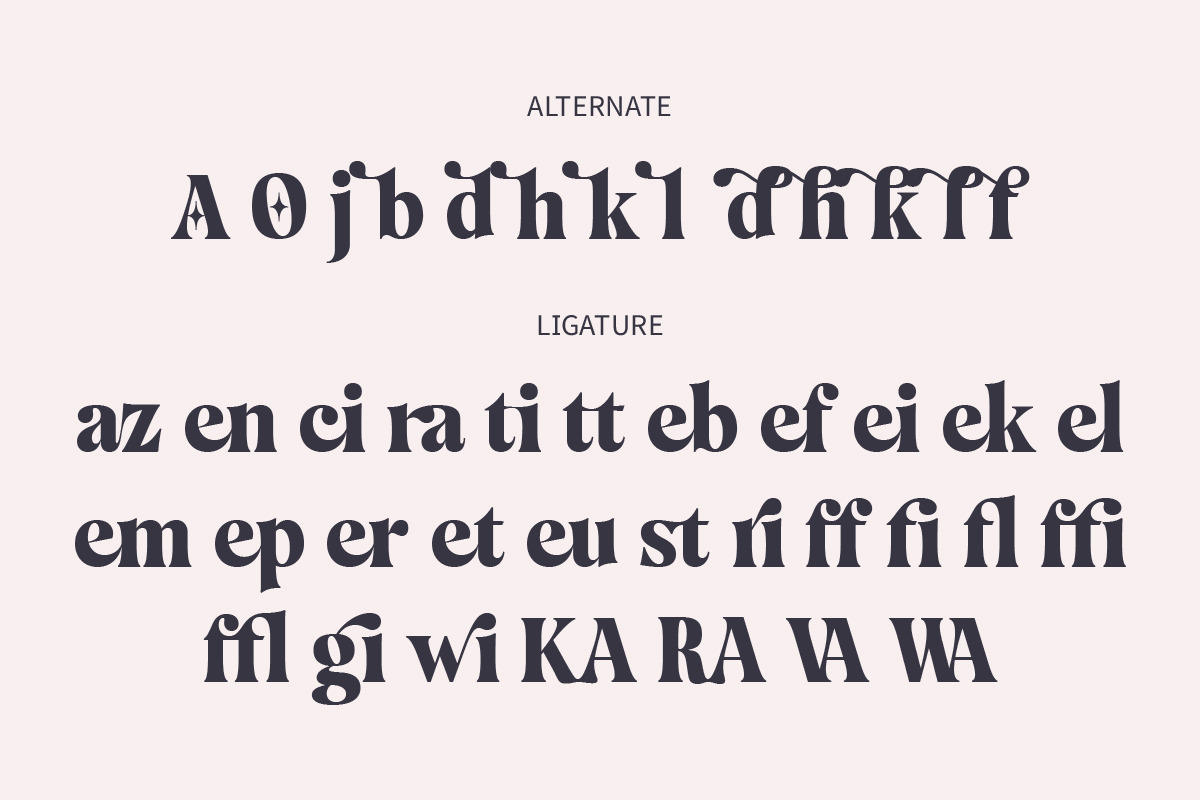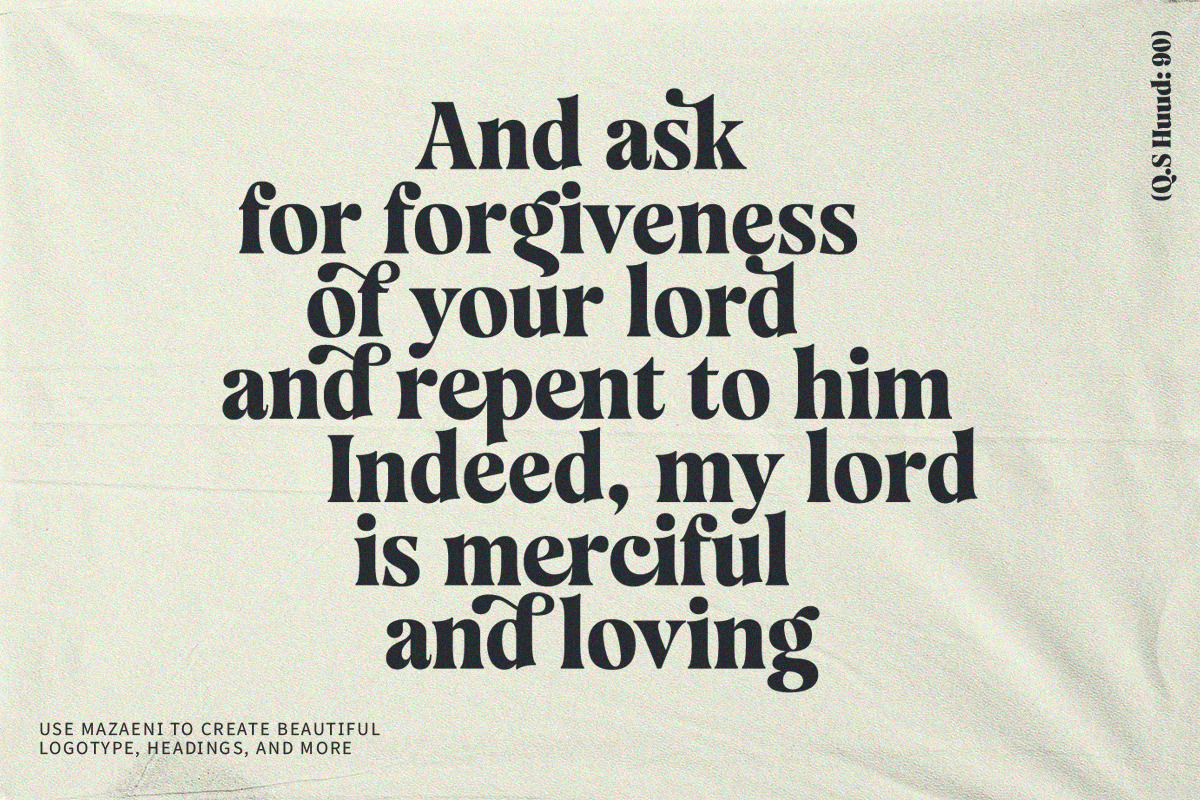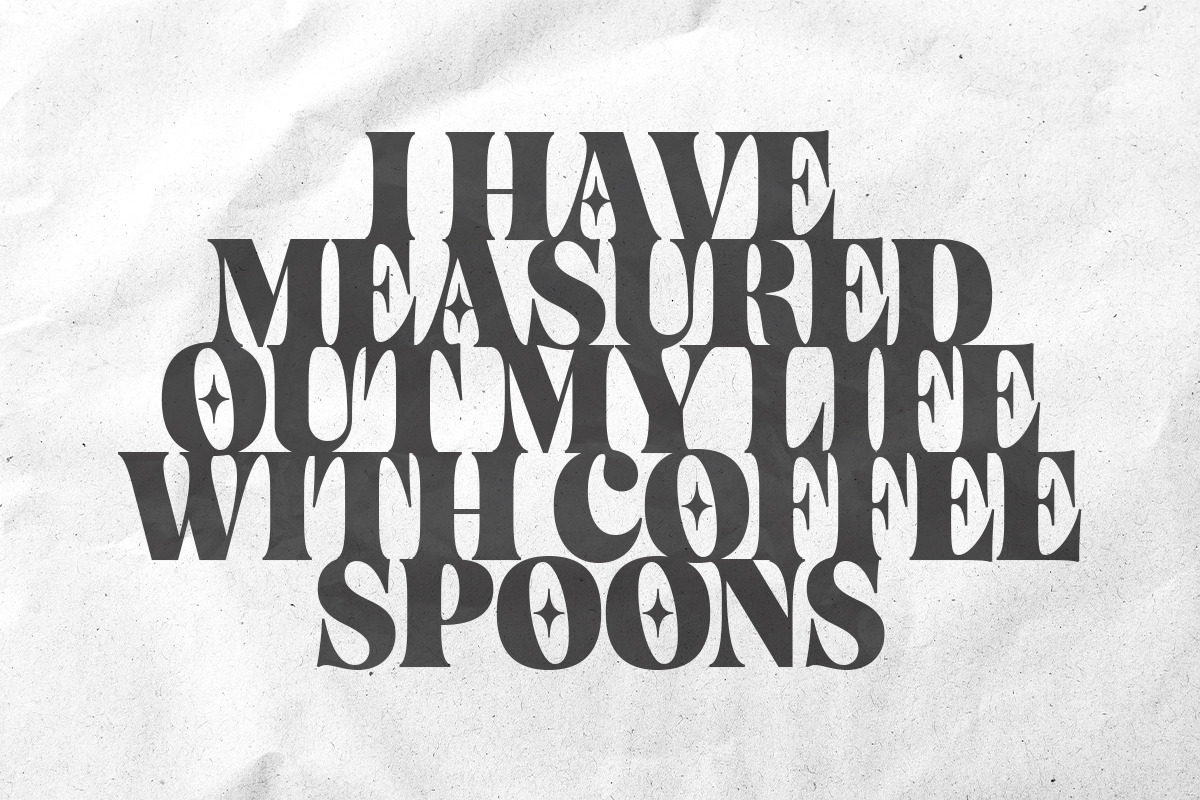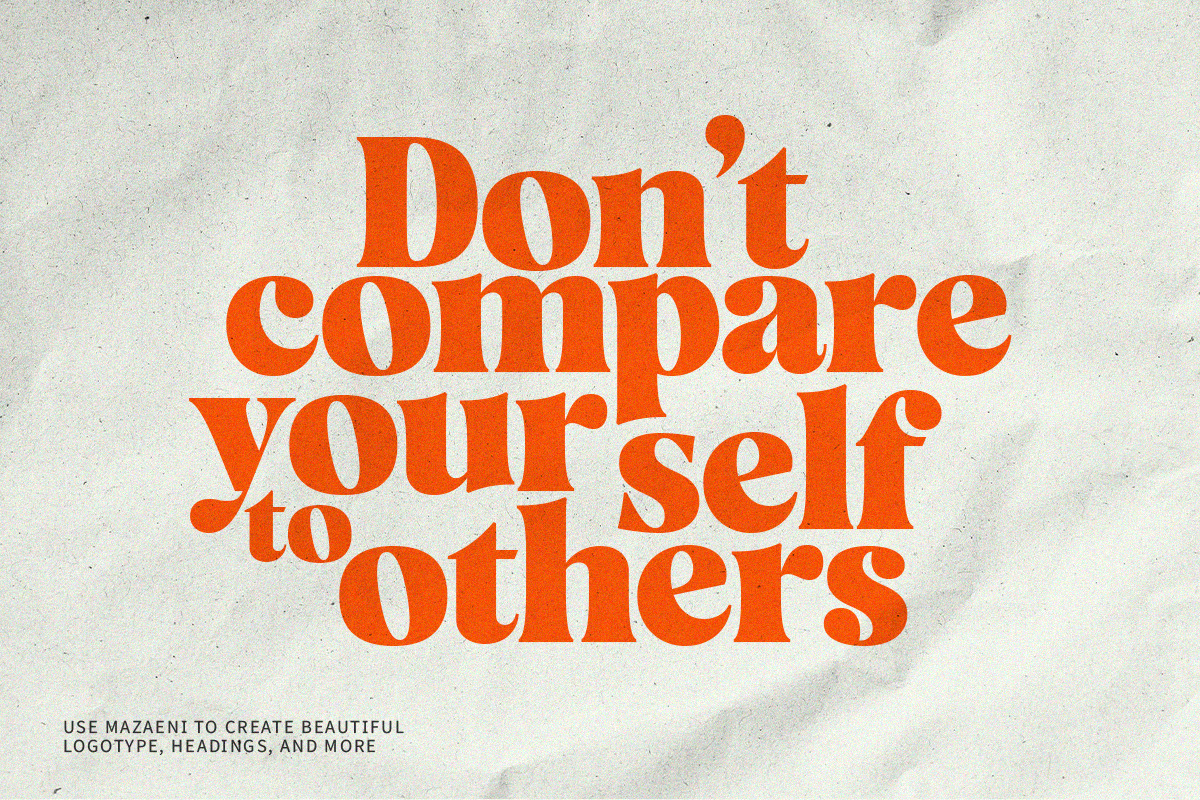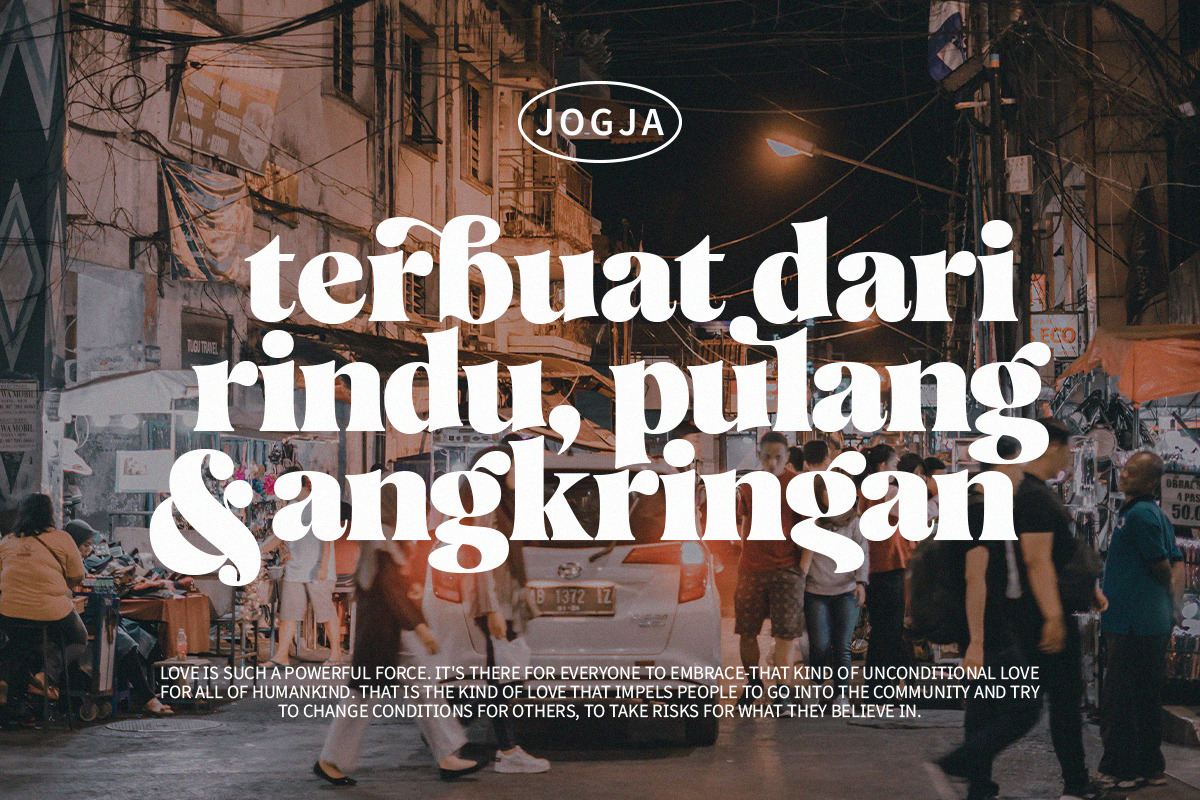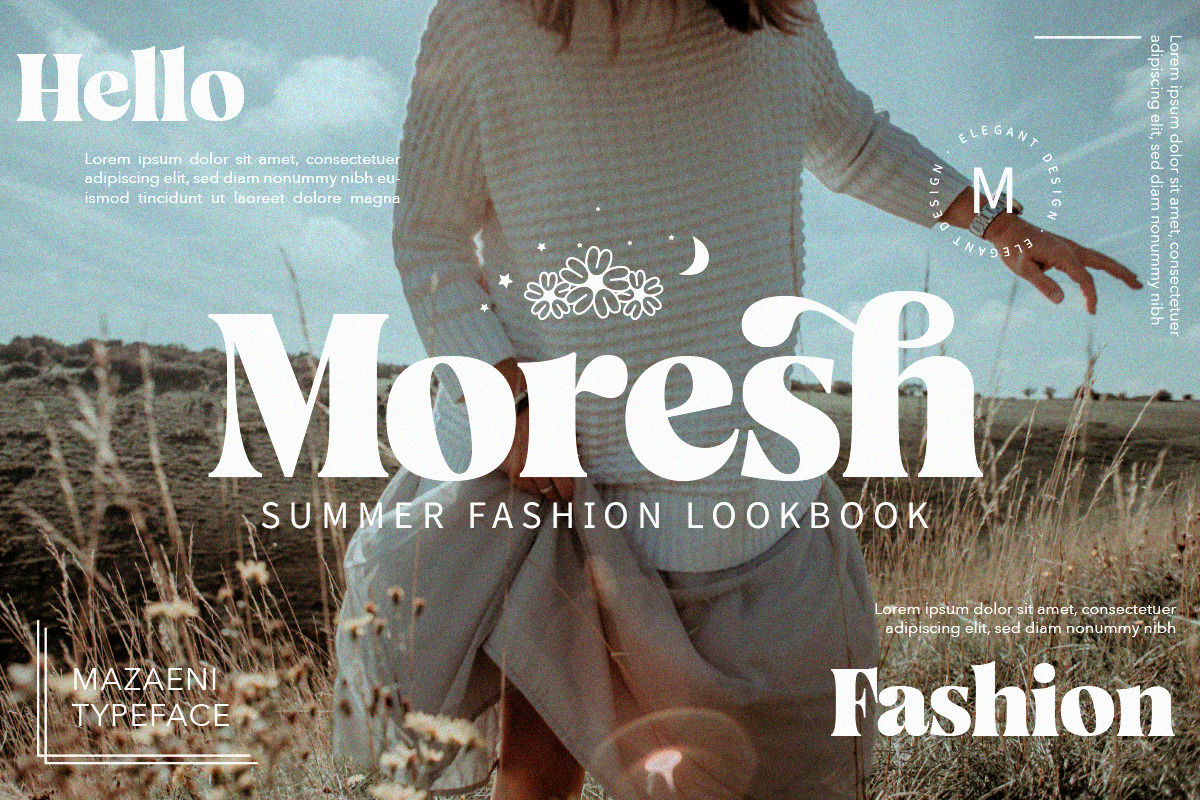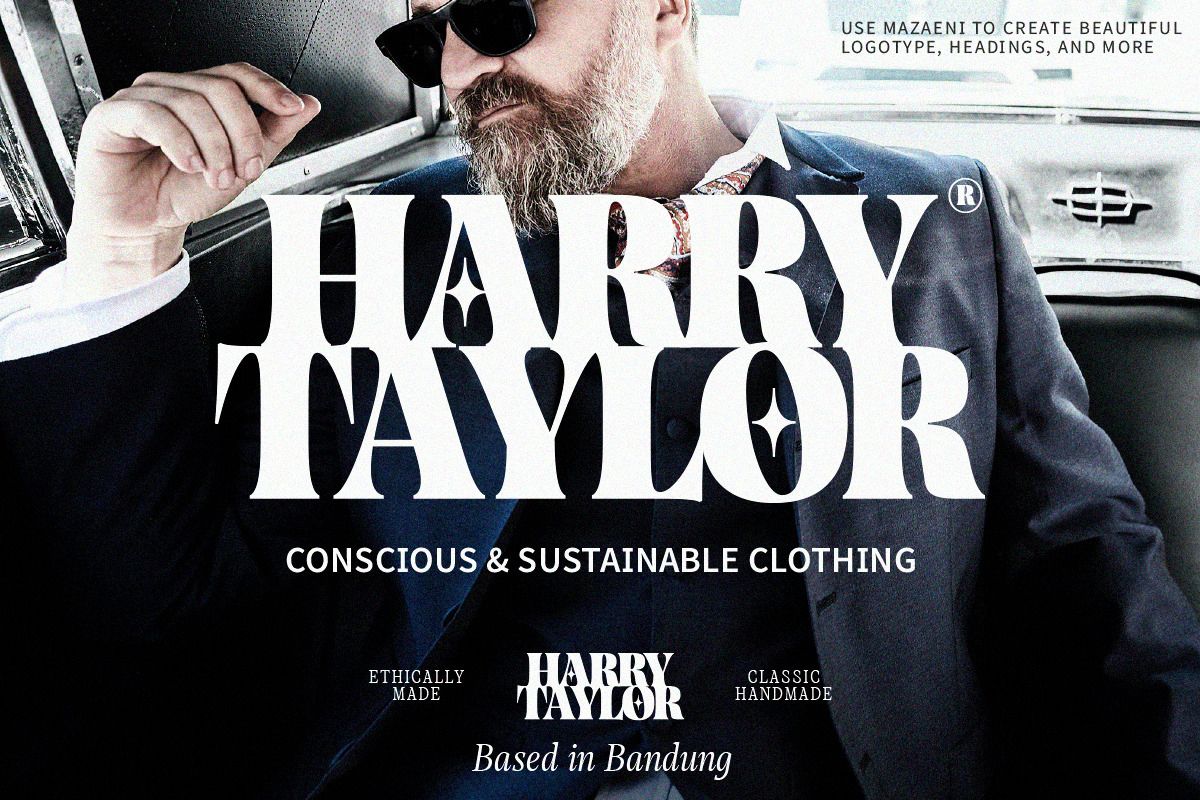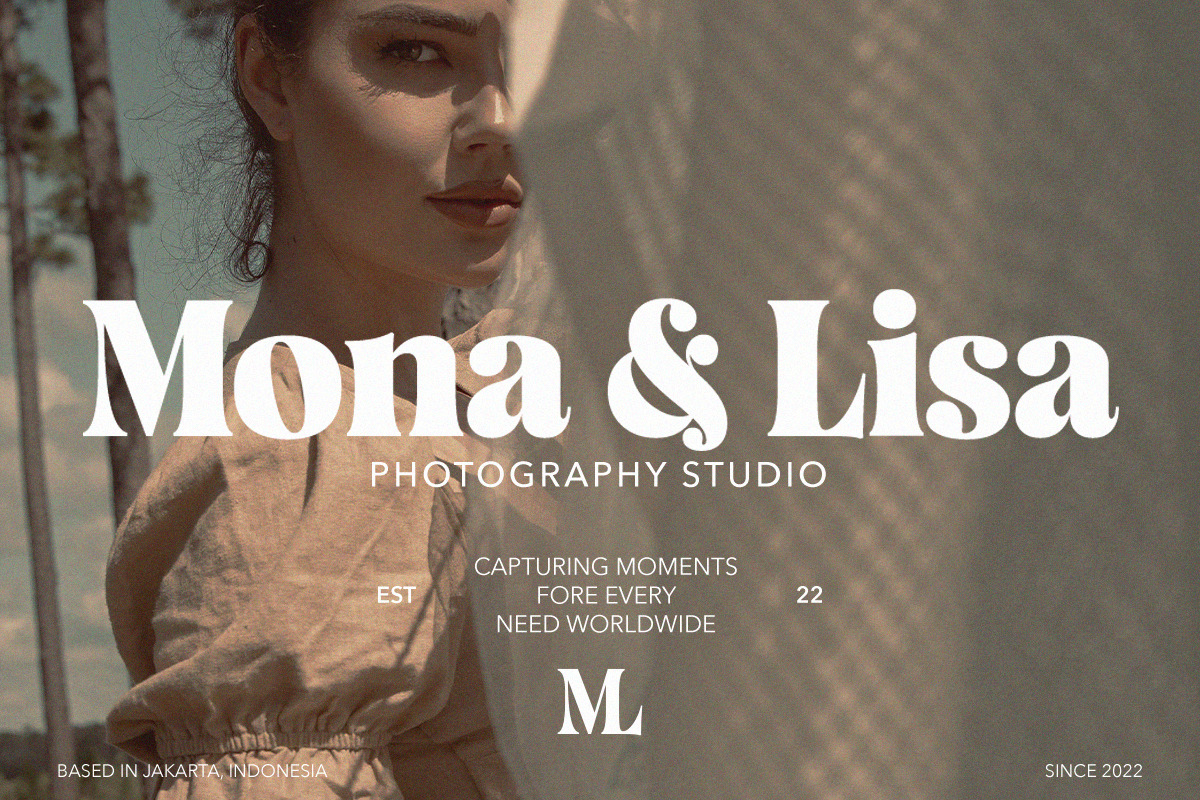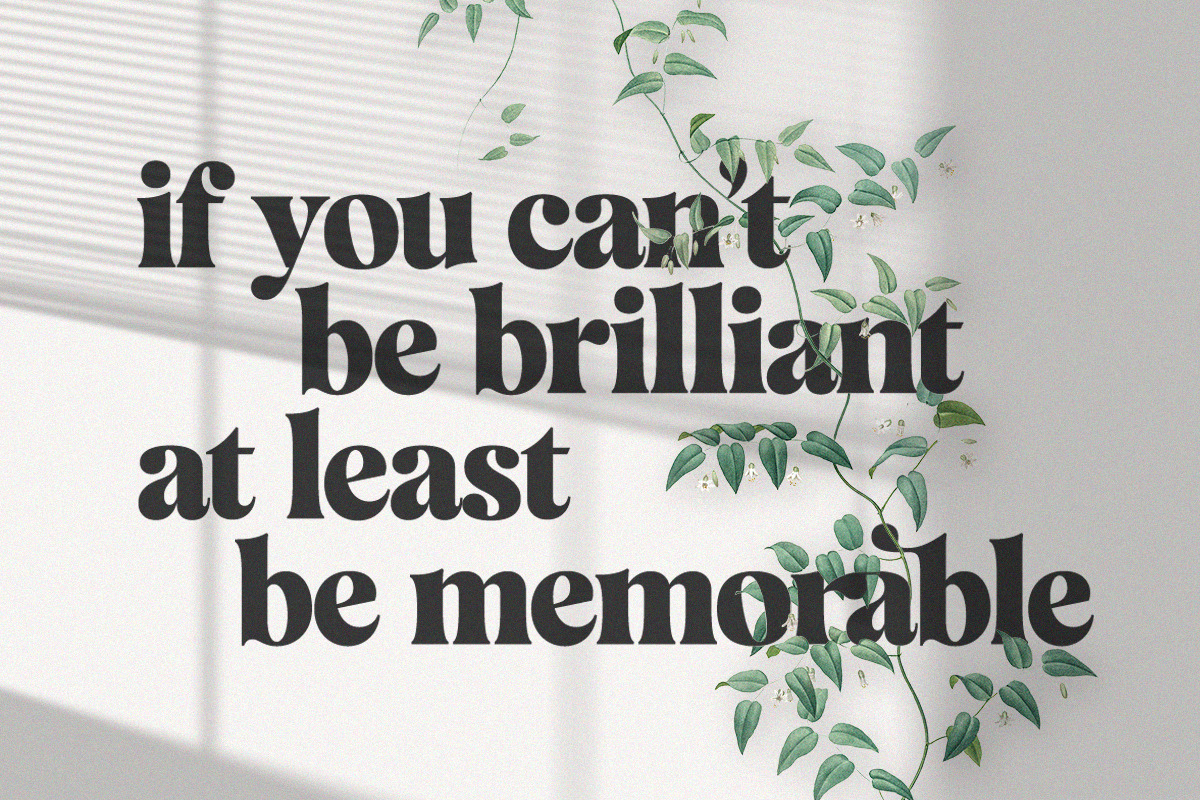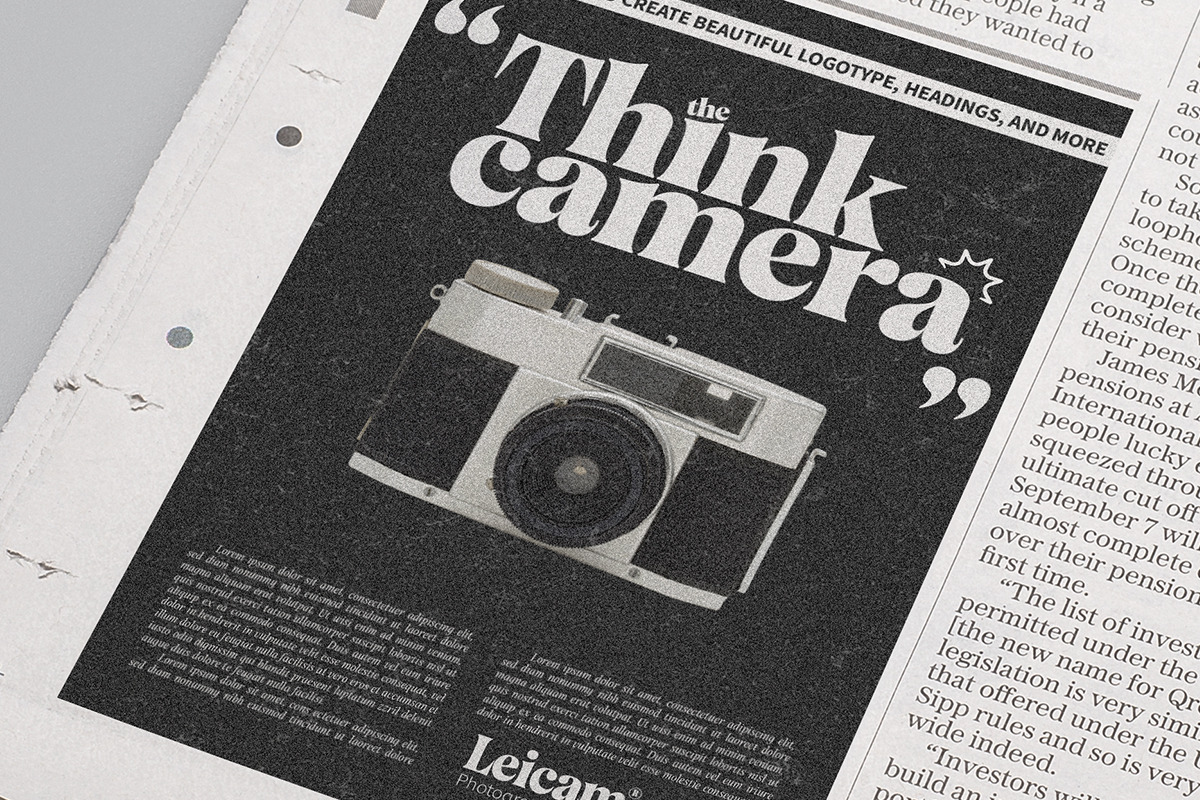
Mazaeni - Bold Serif 5 Font Family
Mazaeni is a bold serif font family that includes 5 Weight regular to Extra Black which is inspired by something simple, elegant, usable, and versatile.
Mazaeni is a daring and playful display typeface perfect for logotypes, posters, and editorial use. Includes wide language support, optional ligatures, OpenType alternates, and more.
One thing to note about Mazaeni is the letter spacing. It was intentionally for clean reading if you wanted to use it for the body type, so I recommended setting the spacing a little tighter for display use (around -5 to -25 should do!).
- Upper Case & Lowercase
- Standard & Discretionary Ligatures
- Support multilingual Language